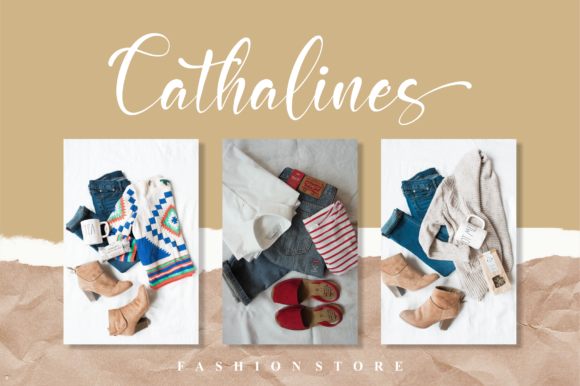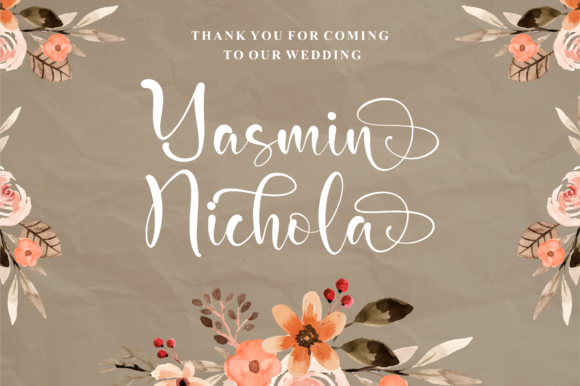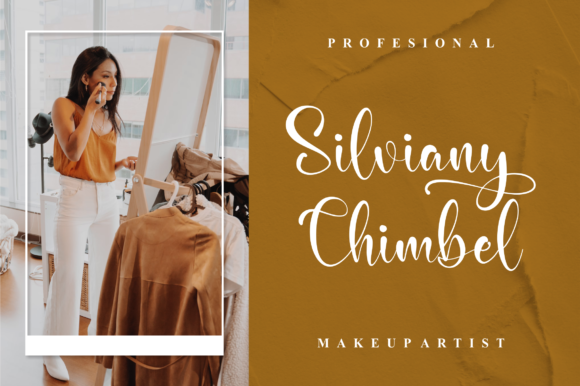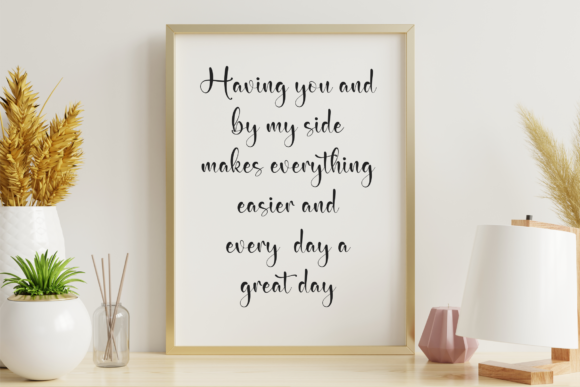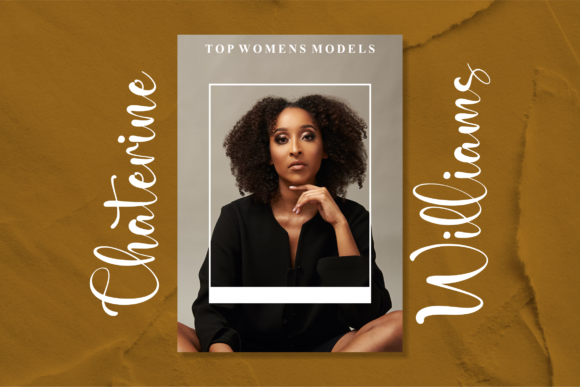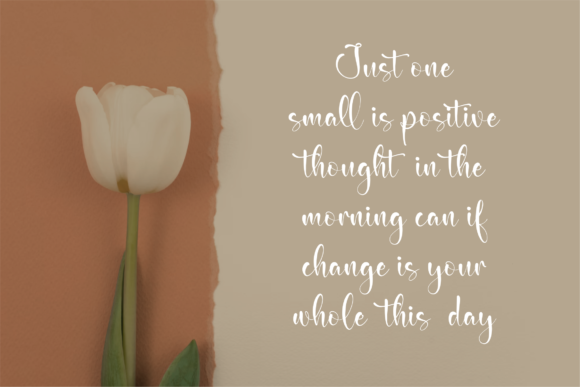
Introduction to Mainches Cantika Font
Mainches Cantika is a stylish and dainty script font.
It is suitable for any projects such as: logos, branding projects, label, photography, watermark, special events, and all your other lovely projects that need a beautiful script taste This font is PUA encoded which means you can access all of the glyphs and swashes with ease.
Key Features of Mainches Cantika Font
Why Choose Mainches Cantika Font?
Mainches Cantika Font offers exceptional quality and versatility, making it a valuable addition to your design toolkit. Whether you’re creating for personal projects or commercial use, Mainches Cantika Font delivers professional results.